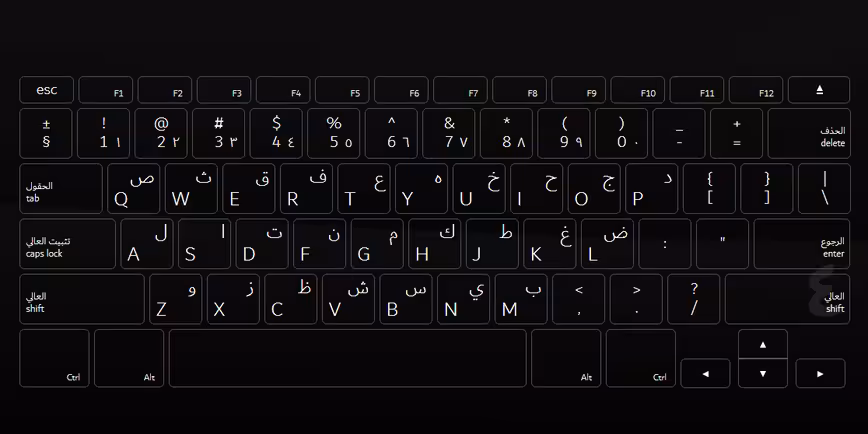
Last weekend, Microsoft unveiled ‘Dubai‘, a totally free font whose matching Latin and Arabic scripts were designed in tandem, with a view to increase legibility on screens.
Born out of a collaboration between the company, design foundry Monotype, and the Dubai government, it’s available at no cost in four weights, and touts a strong message encouraging self-expression. Check out the promo video for it shared by Sheikh Hamdan bin Mohammed bin Rashid Al Maktoum, Dubai’s crown prince:
Dubai is nice enough to use on screen, but the UAE will have to do more than create a pretty typeface if it’s serious about expression – and Microsoft would do well to think twice before partnering on just any sort of promotional program. Of course, perhaps that’s not what it’s really about: